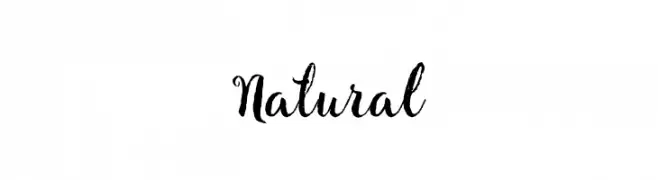
A classic, calligraphic serif font with decorative flourishes.
A futuristic, angular font with a sleek, geometric design.
A futuristic, geometric font with sharp angles and clean lines.
A bold, decorative font with intricate patterns inside each character.
A bold, rugged font with a hand-drawn, vintage style.
An artistic font inspired by ancient cave drawings, featuring animal-like characters.
A collection of animal silhouettes and abstract patterns inspired by ancient cave drawings.
A decorative font inspired by ancient cave drawings with animal silhouettes and geometric patterns.
A playful, festive script font with elegant, flowing cursive letters.
A playful, bold font with rounded, bubble-like characters.
A bold, angular font with high contrast and a dynamic presence.
A bold, decorative font with a modern and slightly vintage style.
A bold, italic font with dynamic curves and a strong visual impact.
A bold and dynamic font with a unique flair, perfect for impactful designs.
A bold, italicized font with dynamic and flowing letterforms.
A modern-vintage serif font with elegant curves and distinct serifs.
A sleek, modern, light italic font with smooth, flowing characters.
A bold, modern font with vintage flair and high contrast strokes.
A dynamic italic font with smooth curves and elegant slant.
A flowing, connected script font with elegant loops and smooth curves.
Medieval-themed illustrative font with each character as a unique scene.
A display font made of dinosaur and prehistoric animal silhouettes.
A quirky, creature-inspired decorative display font.
Abstract, organism-inspired dingbat font with surreal, decorative glyphs.
The image contains abstract insect-like illustrations instead of a valid font.